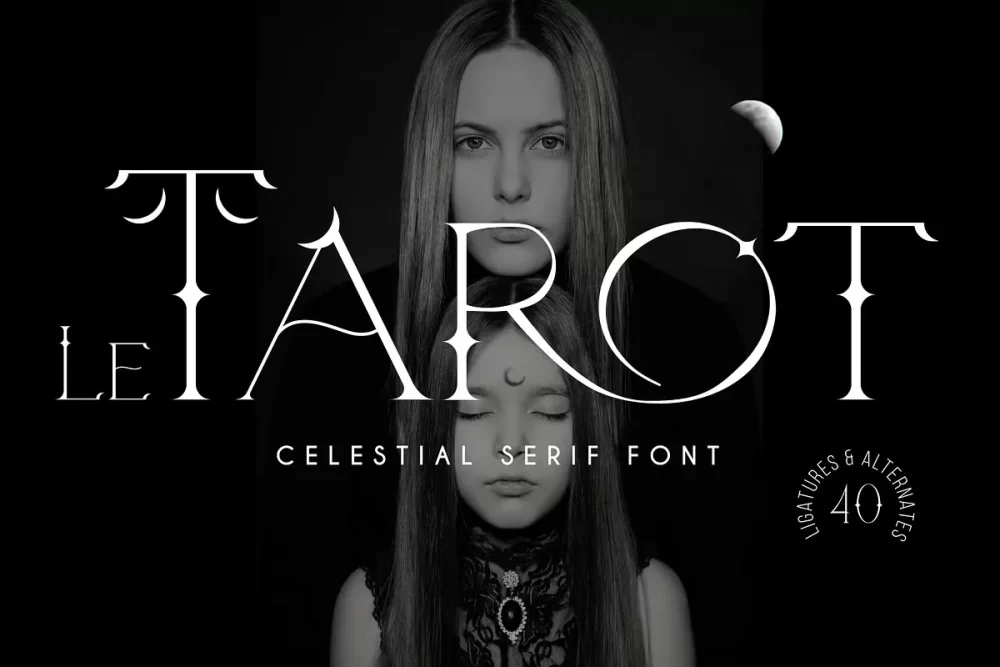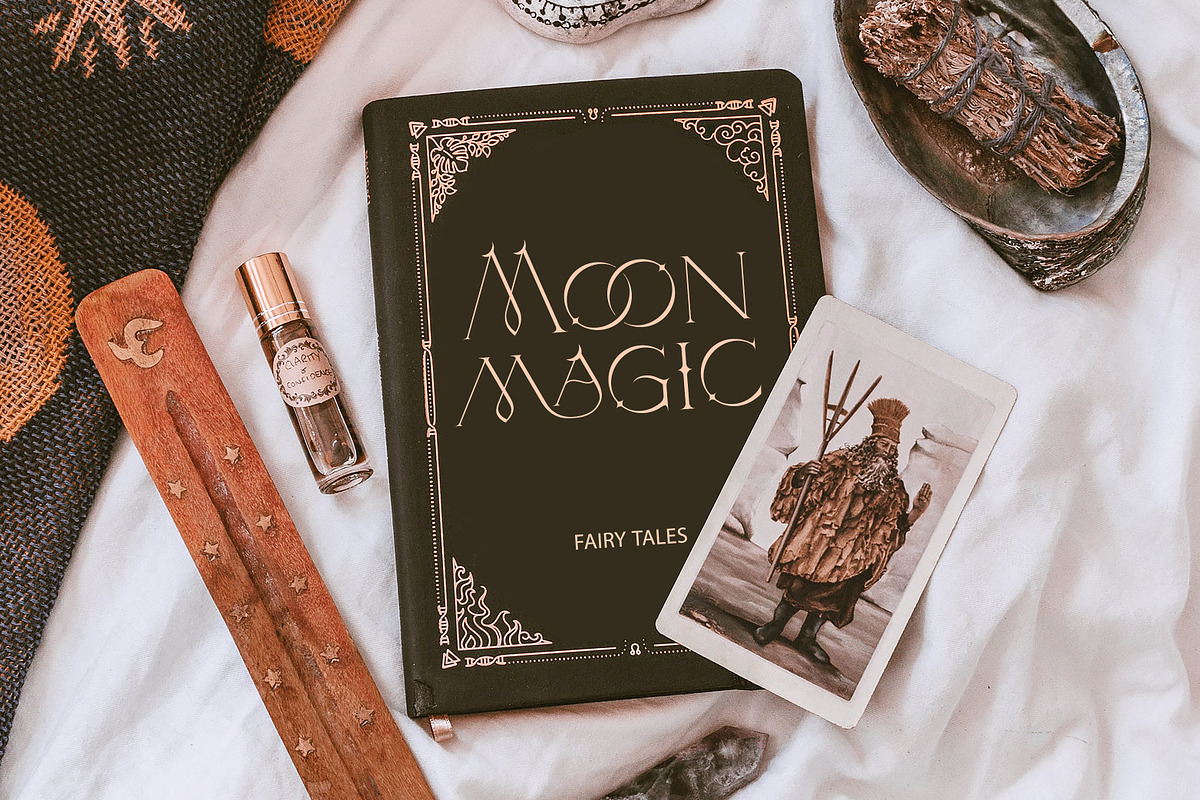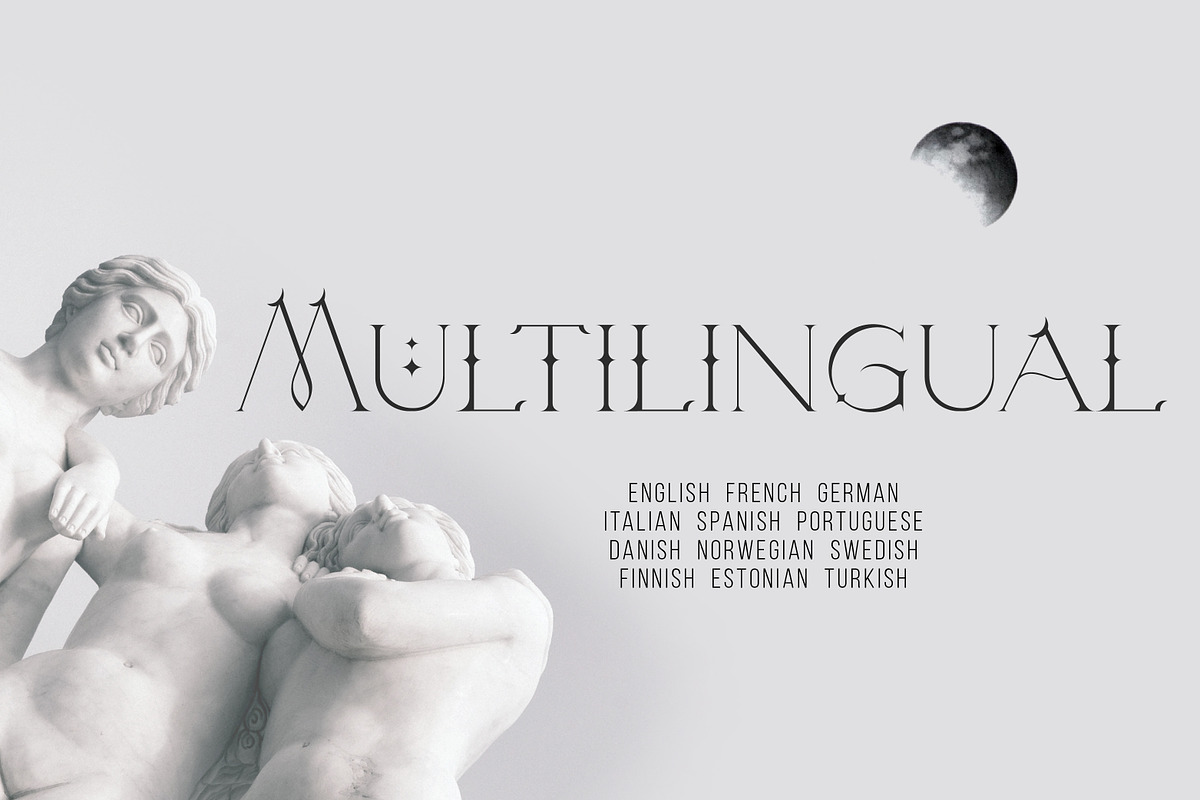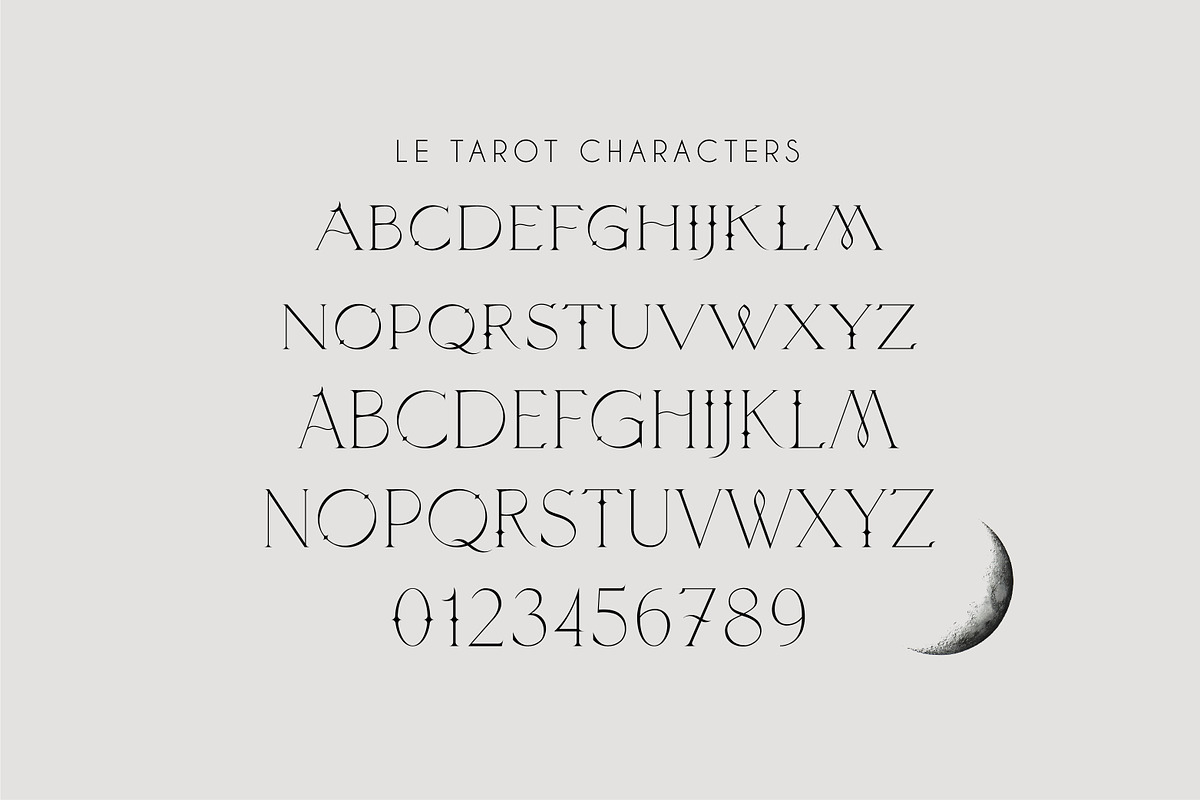
Le Tarot Font is a modern serif font with celestial motives. The font is created in classic proportions and decorated with the moon and stars. Le tarot includes stylistic alternates and ligatures. The font is suitable for the design on the theme of astrology, mysticism, spirituality, witchcraft, magic, and esotericism.
Le Tarot has extensive language support, it includes English, French, German, Italian, Spanish, Portuguese, Danish, Norwegian, Swedish, Finnish, Estonian, Turkish.